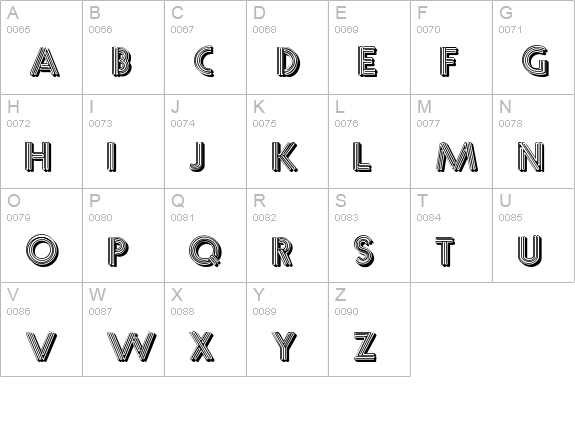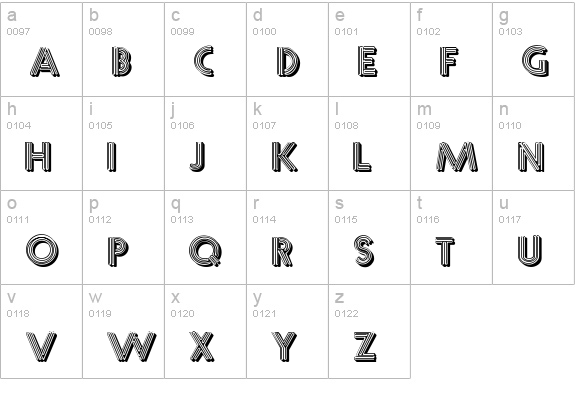
Multistrokes Font Details
Introducing Multistrokes font, a dynamic and versatile typeface that combines multiple strokes to create a unique and eye-catching design. With its intricate details and modern aesthetic, Multistrokes font is perfect for a wide range of projects, from branding to editorial design. This bold and distinctive font is sure to make a statement and grab attention wherever it is used. Whether you're looking to add a touch of creativity to your next project or simply want to stand out from the crowd, Multistrokes font is the perfect choice. Best of all, Multistrokes font is available for free download at FontsMarket.com. Simply visit the website and start using this stylish font in your designs today. Don't miss out on the opportunity to enhance your projects with this striking typeface. Download Multistrokes font now and unleash your creativity!